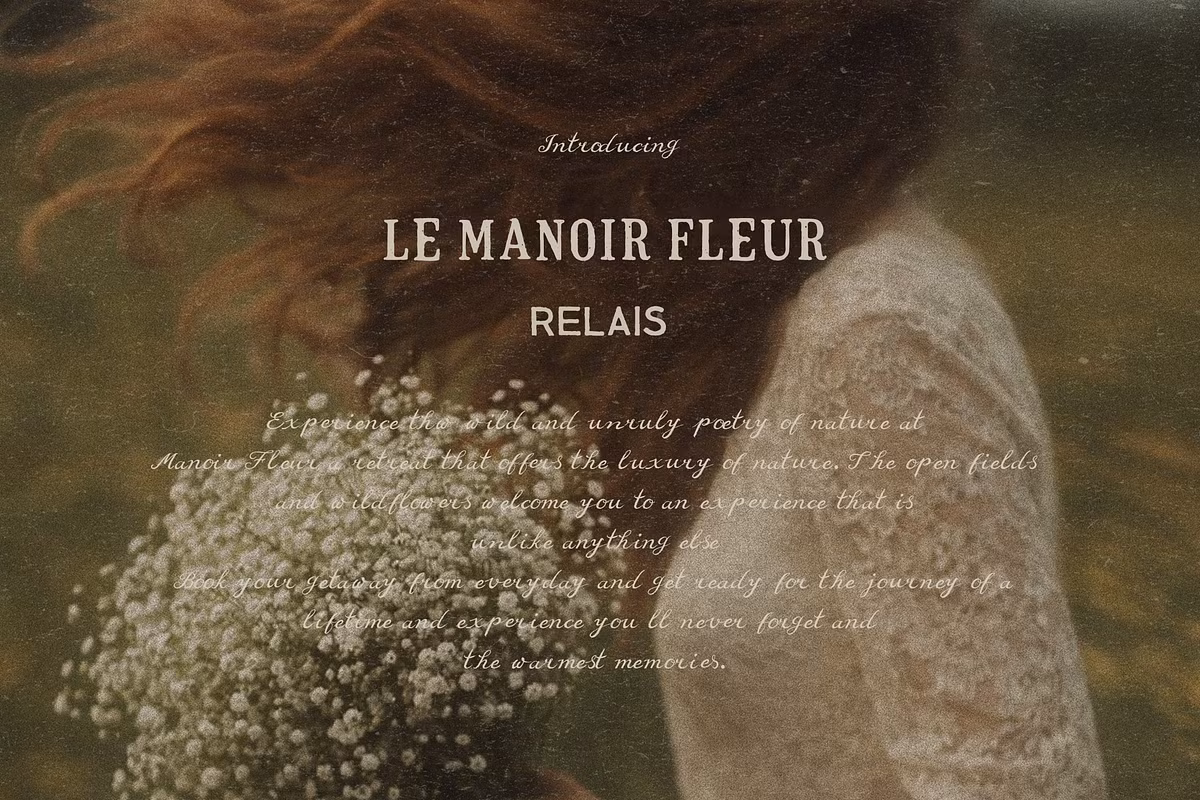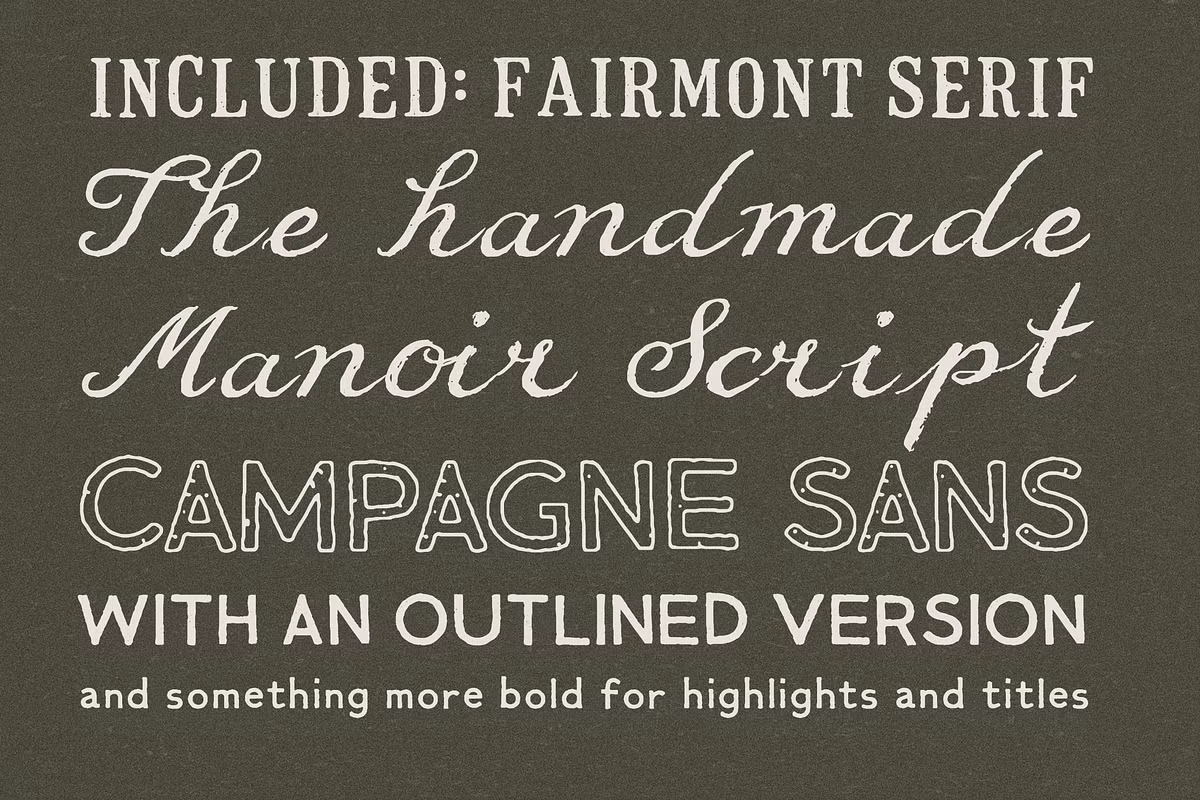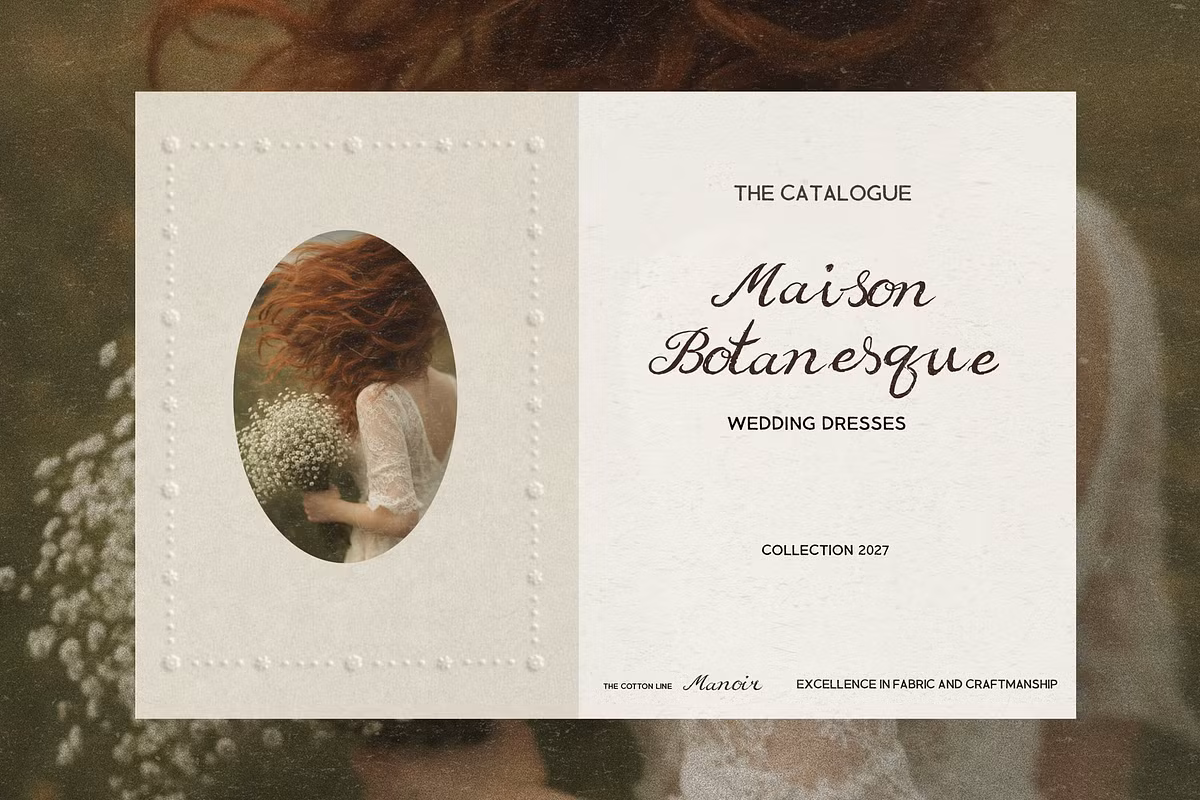
Handmade Cottagecore Script Font Set: Vintage-Inspired Typography Bundle
Handmade Cottagecore Script Font Set
Handmade Cottagecore Script Font Set: Vintage-Inspired Typography Bundle
Introduction to the Handmade Cottagecore Script Font Set
The Handmade Cottagecore Script Font Set is a group of fonts. The Handmade Cottagecore Script Font Set captures the look of hand work. The Handmade Cottagecore Script Font Set brings a hand‑made feel to design projects. The Handmade Cottagecore Script Font Set helps creators who like style. The Handmade Cottagecore Script Font Set is a tool, for anyone who wants that charm.
The font set has five typefaces. The font set offers a flowing script, a handmade serif and a flexible sans family, with outline styles. The font set is carefully made to show textures, brush strokes and small flaws. The font set feels deep. Has character. If you design for print or digital media the font set adds a flair to your vision.
Example of Handmade Cottagecore Script Font Set
Visual representation of the Handmade Cottagecore fonts.
Design Style: Rustic Elegance
The Handmade Cottagecore Script Font Set shows a style that feels rustic and elegant. The flowing script called ManoirDesFleur gives a bold look, to letters. The Handmade Cottagecore Script Font Set works for headings and big text. The Handmade Cottagecore Script Font Set catches the eye. The graceful curves of ManoirDesFleur. The natural flow of ManoirDesFleur bring warmth and nostalgia. The Handmade Cottagecore Script Font Set fits projects that want to tell a story.
In contrast the Fairmont serif font brings a vintage feel. The Fairmont serif font shows a look. Uses real textures that give the Fairmont serif font a unique character. The Fairmont serif font works well for branding and print work. The Fairmont serif font has a artistic style that matches a flowing script and lets the Fairmont serif font create type pairings.
Rustic elegance of the Fairmont serif font
Fairmont serif font showcasing rustic elegance.
Character Sets and Unique Features
Each font, in the Handmade Cottagecore Script Font Set offers a character set that includes Latin characters, numerals and punctuation marks. The full character range enables creation of engaging content without compromising style.
I see the font set has a texture that stands out. I notice the fonts feel handcrafted. I notice the fonts have brush strokes and small flaws that give a feel to the designs. The detail lifts the look. I think the typeface is not a font. I think the typeface is a piece of art.
Use Cases: Where to Apply This Font Set
The Handmade Cottagecore Script Font Set is very versatile. The Handmade Cottagecore Script Font Set works well for applications. Here are some good ways to use the Handmade Cottagecore Script Font Set:
• Branding: I will create a brand identity that’s unique, for boutique shops. I will create a brand identity for products. I will create a brand identity, for lifestyle brands that value authenticity and craftsmanship.
• Wedding Stationery: Use the flowing script, for invitations. Use the flowing script for cards. Use the flowing script, for thank‑you notes. The flowing script makes Wedding Stationery elegant and personal.
• Packaging: I design product labels and packaging that catch the eye on the shelves. Product labels and packaging have a polished look. Product. Packaging, with the rustic but polished look work, for handmade goods.
• Layouts: I put the fonts into magazine layouts. I also use the fonts in blogs or online articles when the story and the look matter.
• Signage: I use these fonts for signage projects that catch the eye. Signage blends modern and vintage elements.
Example of wedding stationery using the font set
Wedding stationery designed with the font set.
Pairing Suggestions for Enhanced Typography
I find that the hand-drawn rustic shapes and the logo symbols give me design elements that I can fit into my projects. The hand-drawn rustic shapes and the logo symbols improve storytelling. The hand-drawn rustic shapes and the logo symbols add meaning and context to my compositions.